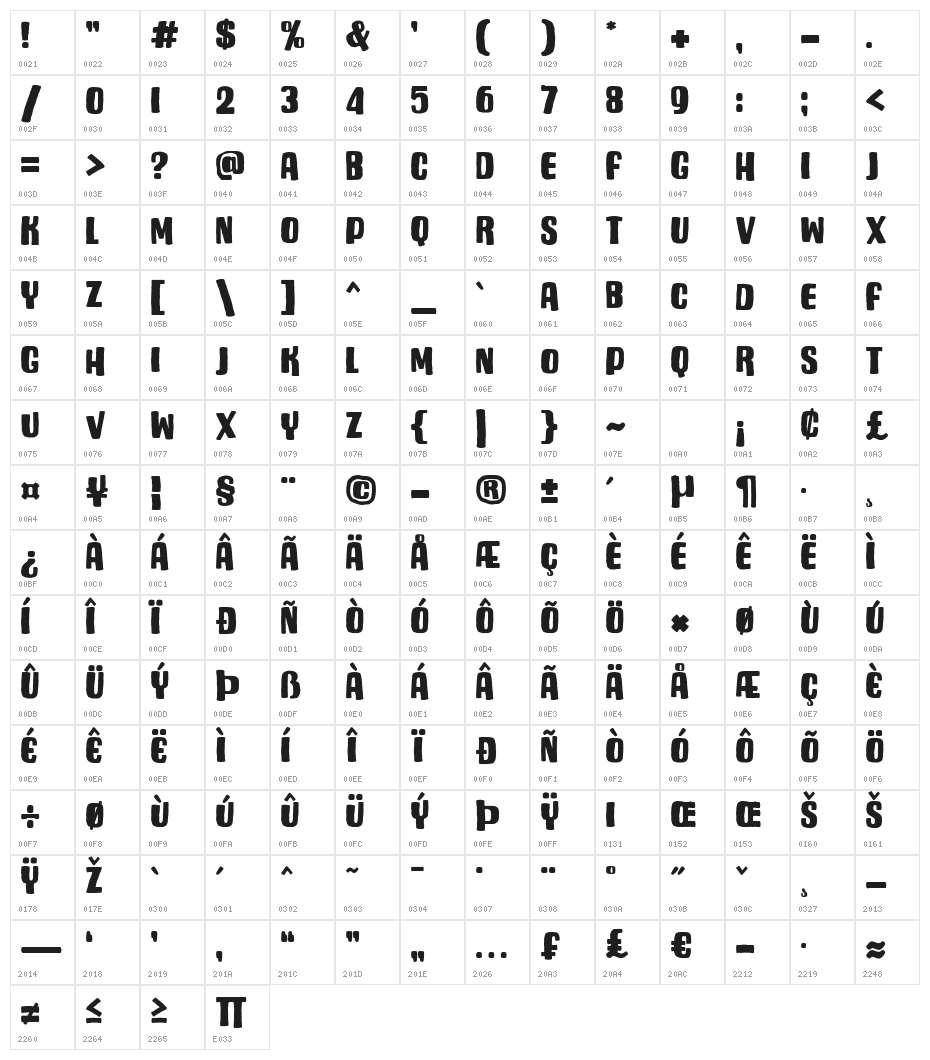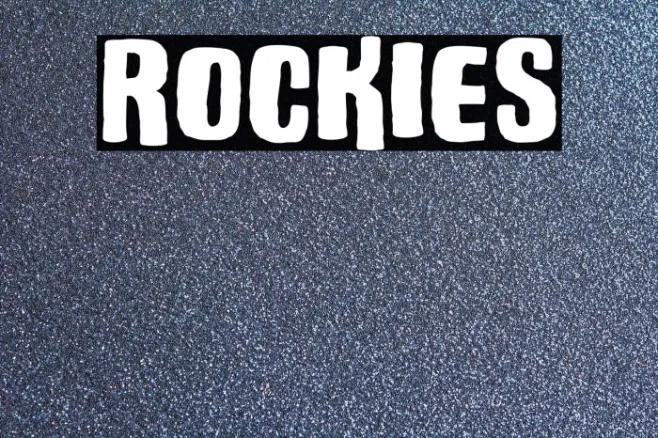
Rockies Font
Rockies Description
This font features a bold and rugged design, characterized by thick, heavy strokes and a slightly uneven texture that gives it a hand-crafted appearance. The letters are uppercase and maintain a consistent height, contributing to a strong and impactful visual presence. The numbers and special characters follow the same bold style, ensuring uniformity across all elements. The font's design evokes a sense of strength and durability, making it suitable for projects that require a commanding and attention-grabbing typeface.
| Overall Style | Rugged, Bold, Hand-crafted |
| Use Case | Headlines, Branding, Posters |
| Proposed Projects | Ideal for branding, posters, outdoor adventure themes, and headlines that need a strong visual impact. |